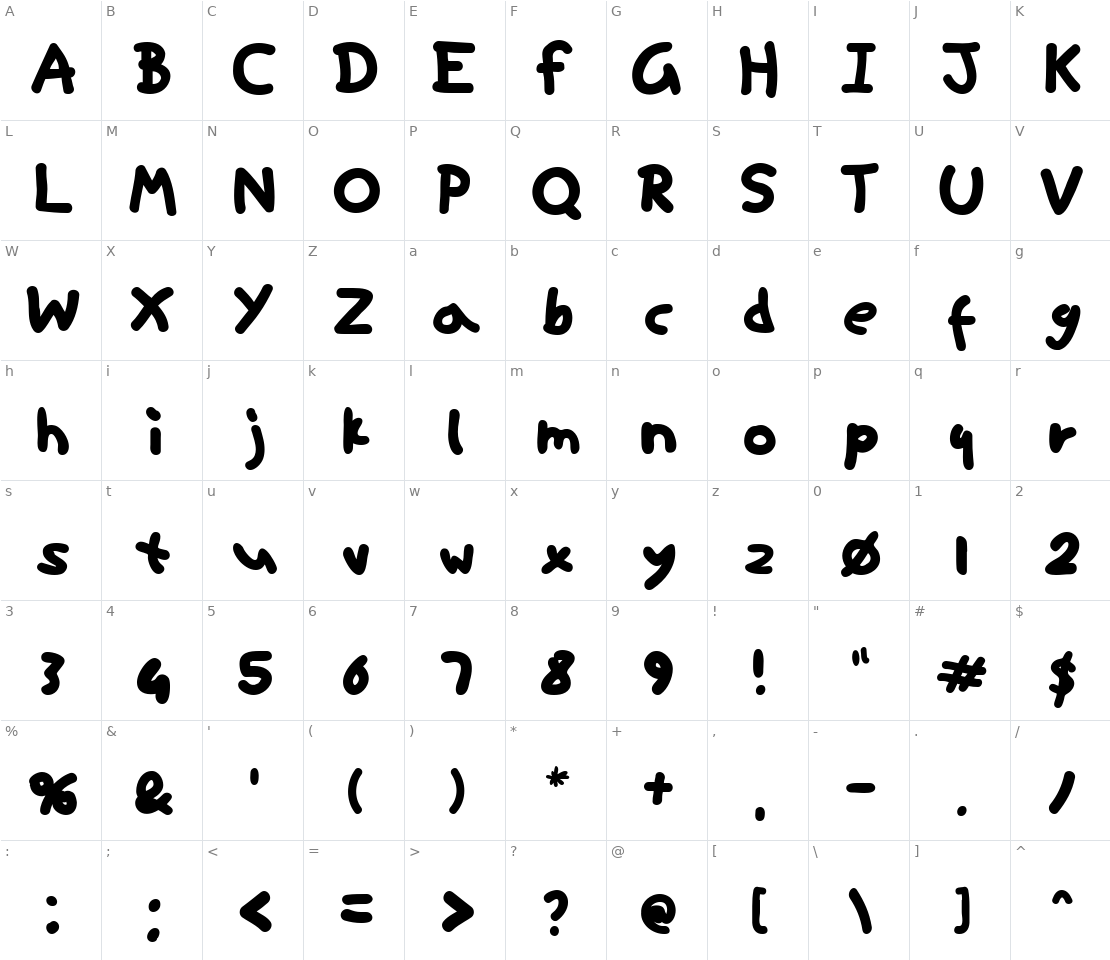
Ninifont
by InkyType
Ninifont is a thick, rounded handwritten face from InkyType with a cheerful, childlike bounce to every letter. The bold strokes and soft edges give it a crayon-on-paper quality that feels genuinely playful rather than overly designed. Works best in headlines, children's books, packaging, and anywhere you want type that radiates fun without trying too hard.